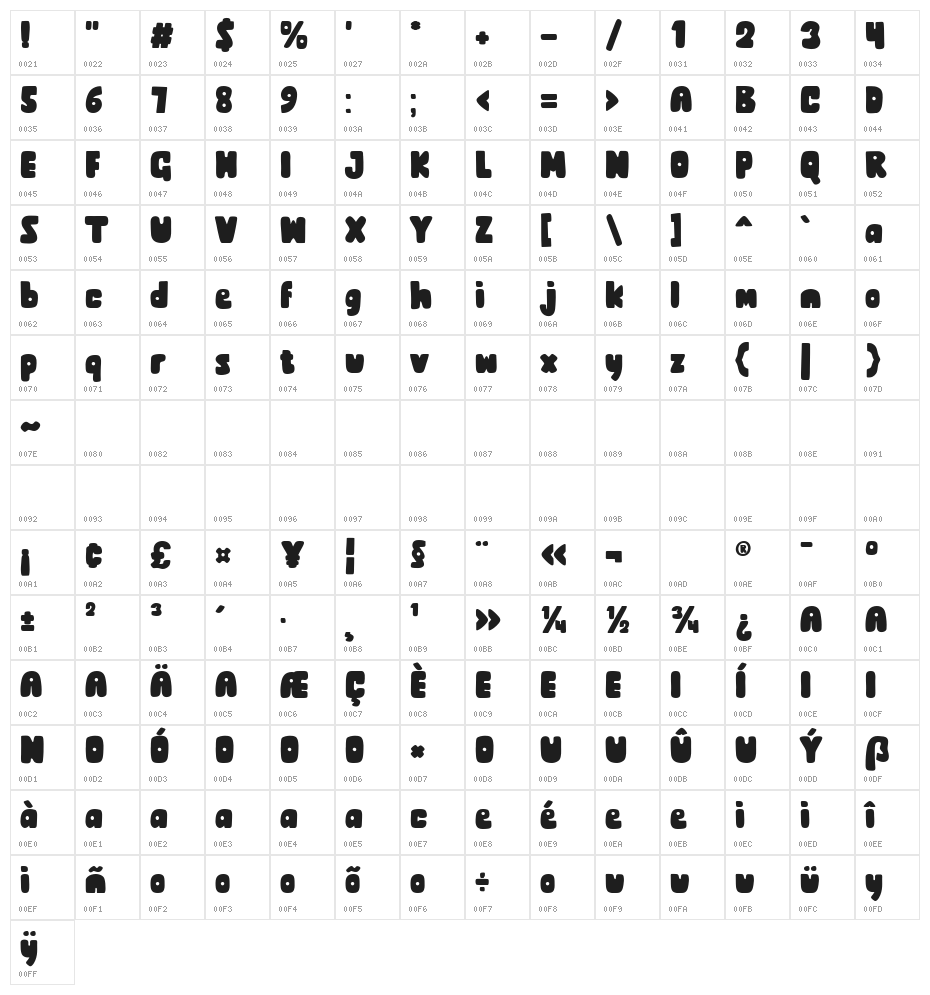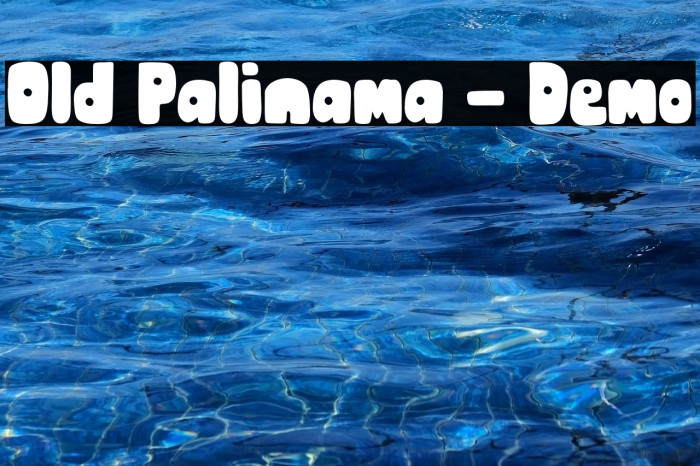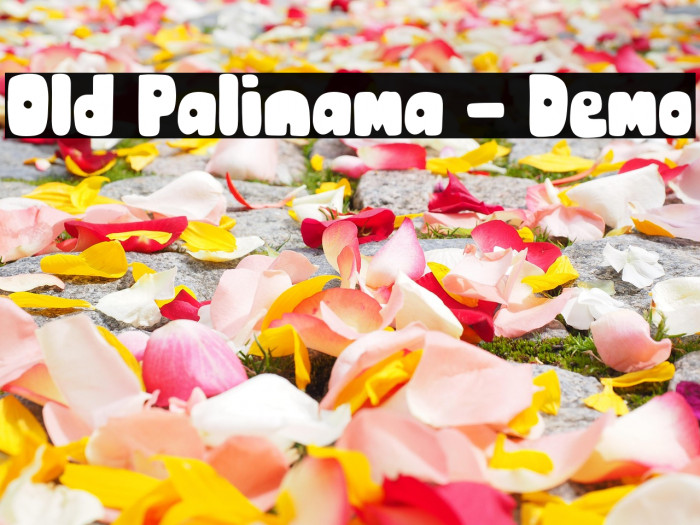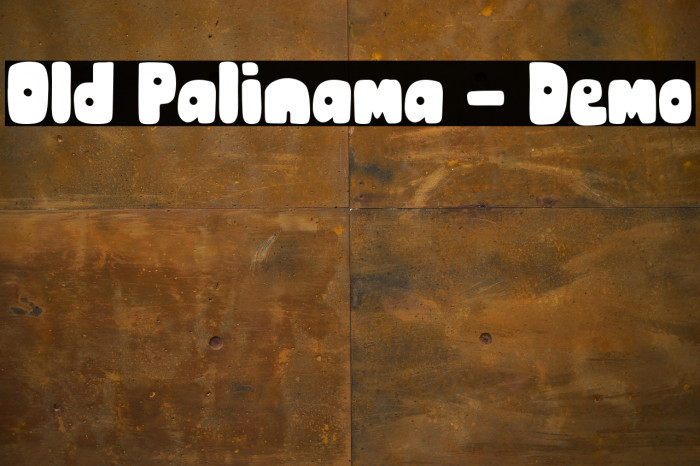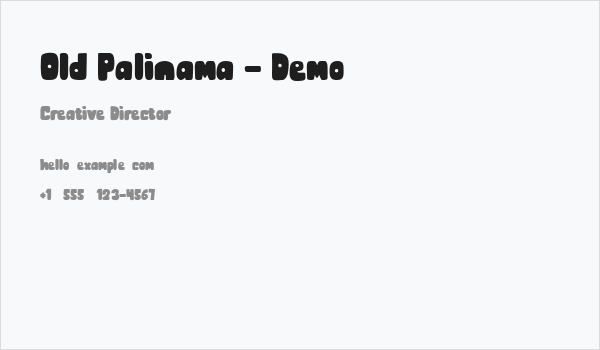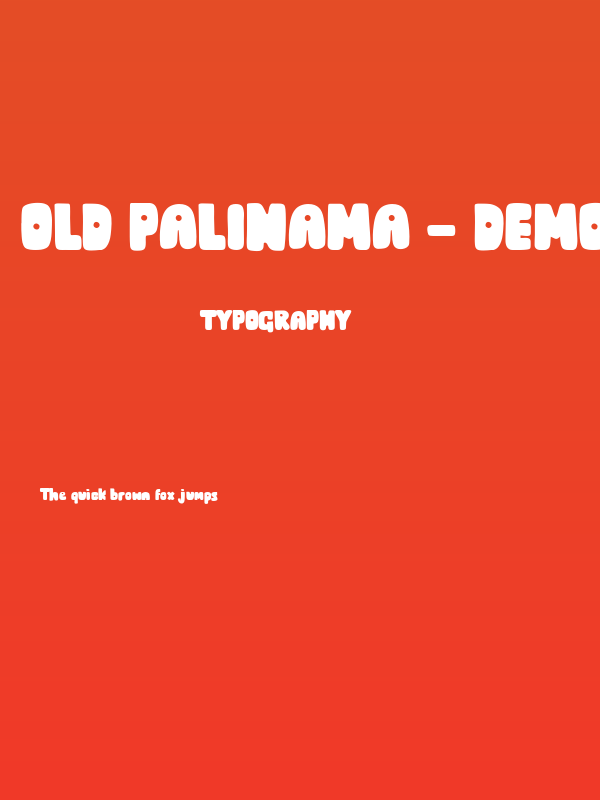
Old Palinama - Demo Font
Old Palinama - Demo Description
This playful and bold font features rounded, bubbly characters that exude a sense of fun and whimsy. The letters are thick and substantial, with a consistent stroke weight that gives them a strong presence. The overall design is informal and friendly, making it ideal for projects that aim to convey a lighthearted and approachable tone. The characters are evenly spaced, ensuring readability while maintaining the font's distinctive style. This font is particularly suitable for creative projects where a touch of personality and flair is desired.
| Overall Style | Playful, Fun, Whimsical |
| Proposed Projects | Ideal for children's books, party invitations, playful branding, and social media graphics. |